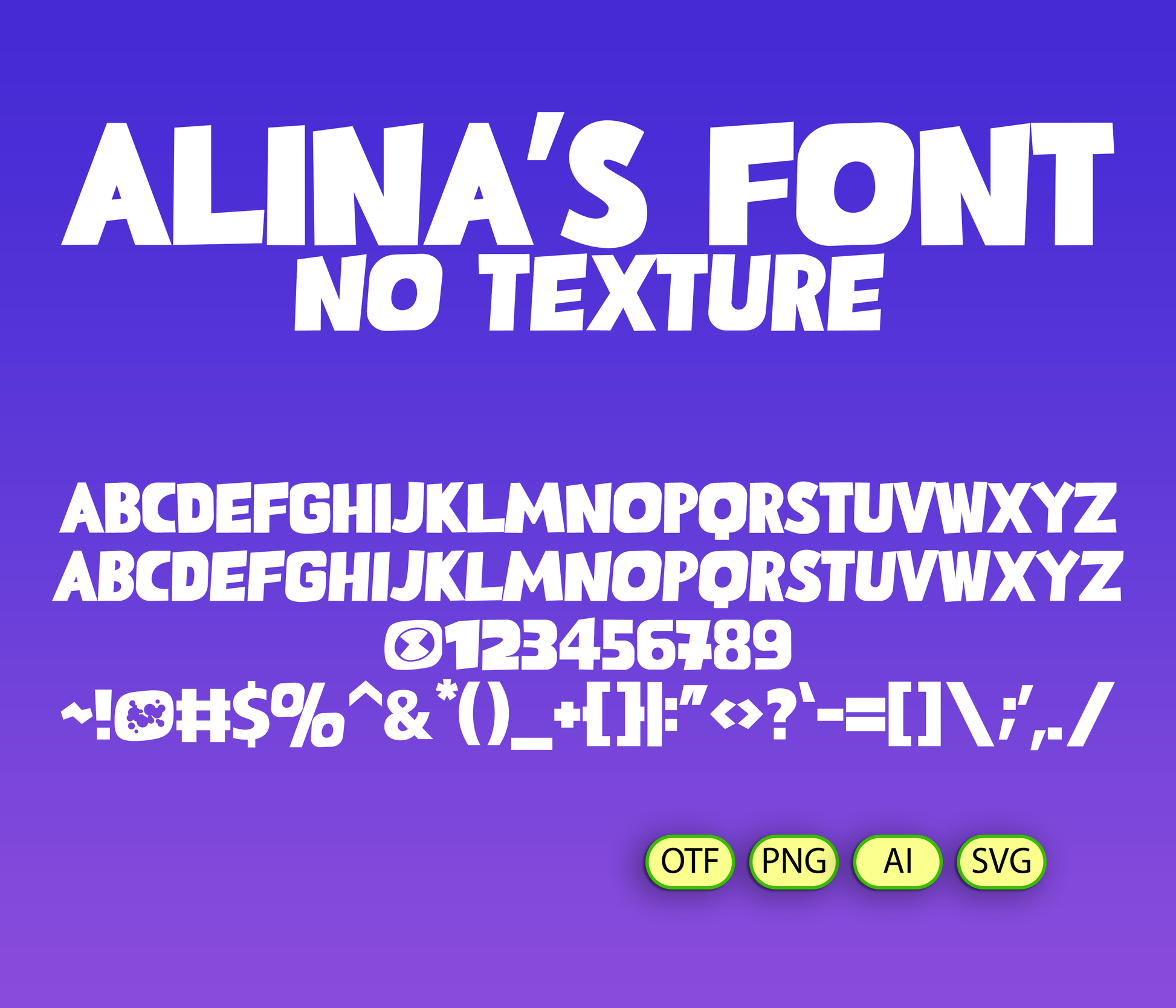
Galactic Hero Font
Unleash the Alien Adventure with the Galactic Hero-Inspired Font
Transform your designs with the adventurous spirit of our Galactic Hero-inspired font. Perfect for fans, event planners, and designers looking to capture the energetic and heroic essence of a beloved animated series, this font brings the dynamic and action-packed world to your projects. Whether creating event invitations, themed merchandise, or digital content, our Galactic Hero font ensures your projects resonate with excitement and power.
Our Galactic Hero-inspired font features bold, futuristic lines and sharp, dynamic characters that reflect the high-energy and adventurous nature of the show. This versatile font is ideal for a variety of applications:
Our Galactic Hero font not only pays tribute to the iconic animated series but also empowers you to infuse your designs with its dynamic and heroic spirit. Whether crafting promotional materials, designing unique merchandise, or adding a bold touch to personal projects, this font allows you to communicate with the high-energy and adventurous essence that defines a galactic hero. Ready to transform your creative projects with a touch of alien power? This font is your key to unlocking a world of exciting and impactful design.